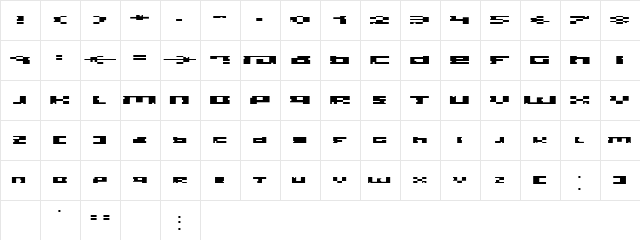
Bite Regular
Design Context for Bite Typeface
Bite is a composed and adaptable typeface that performs quietly and consistently across a wide range of design contexts.